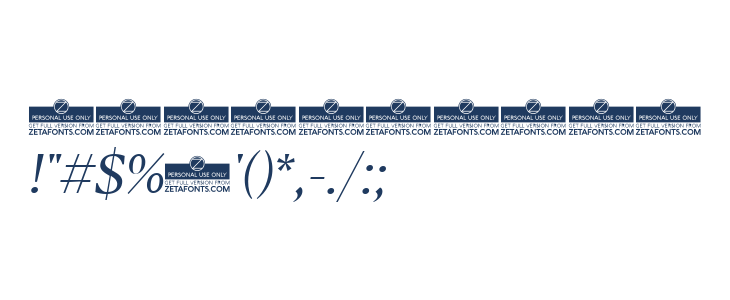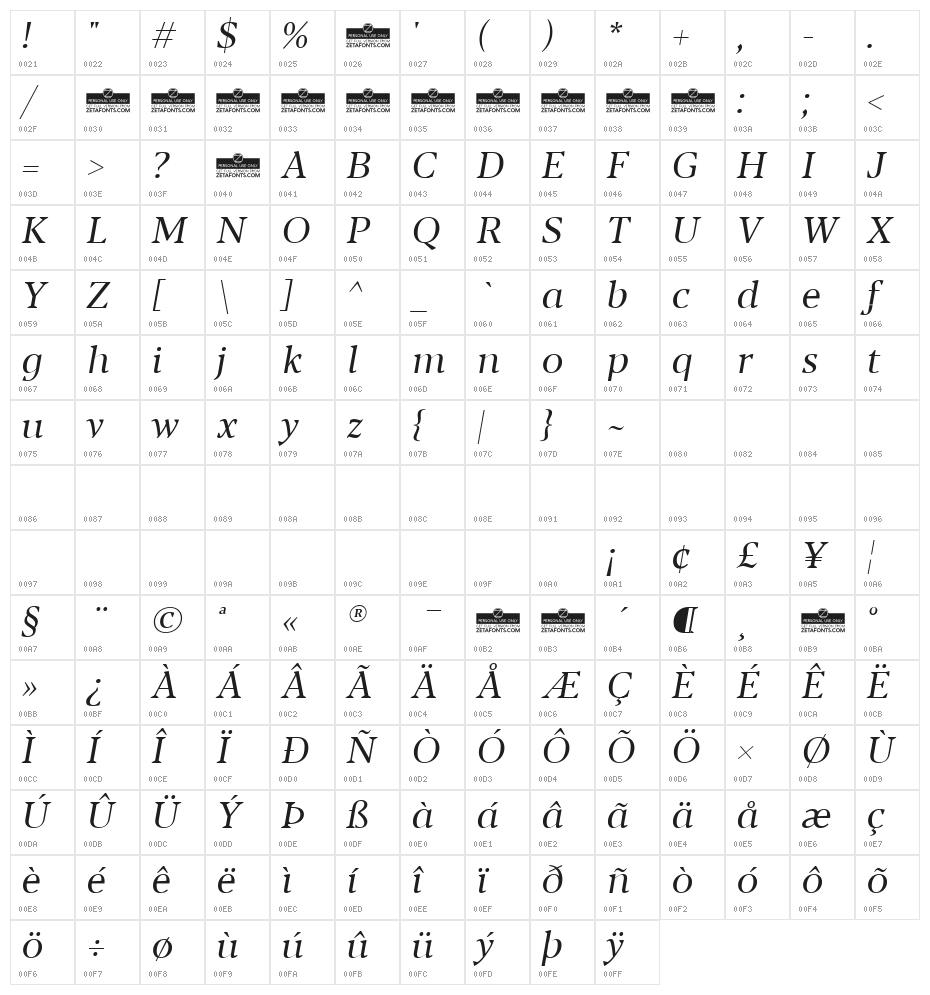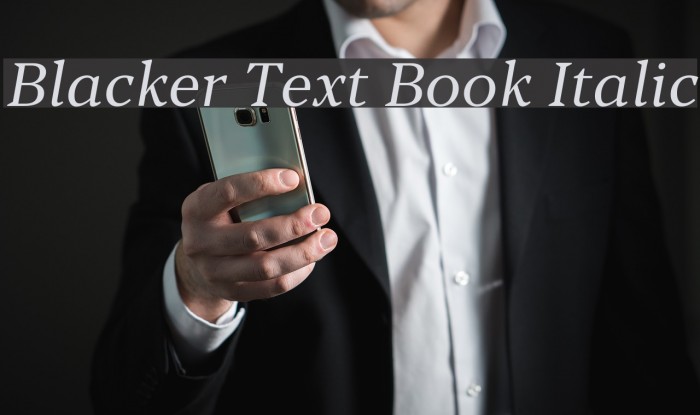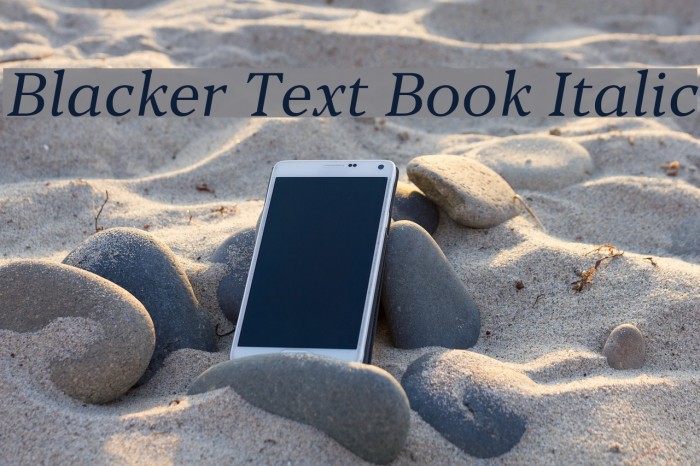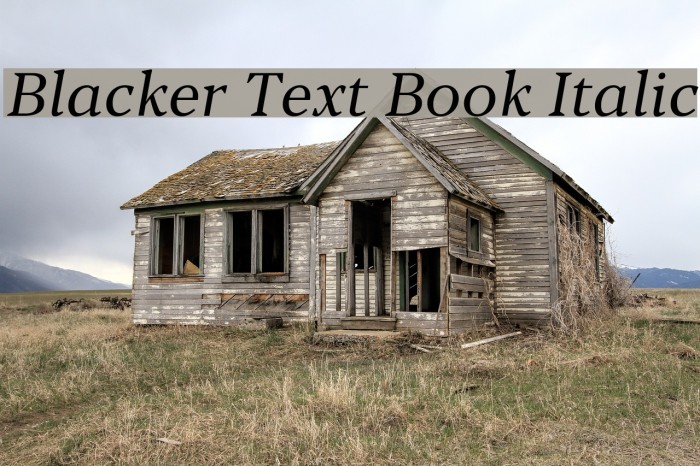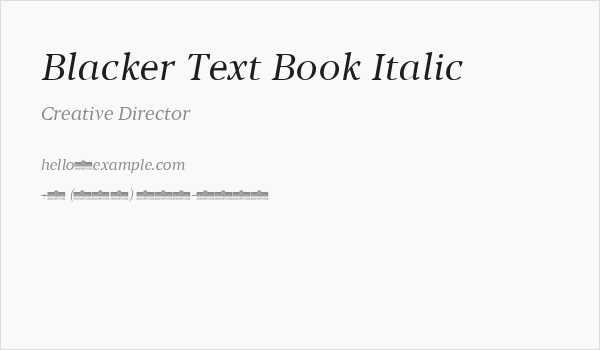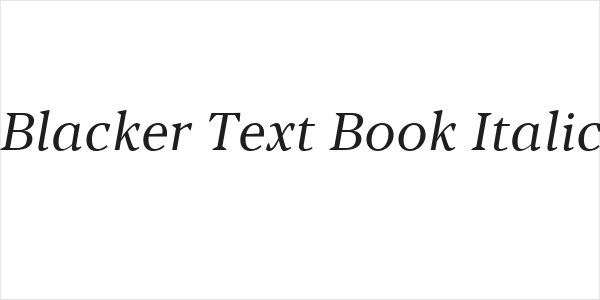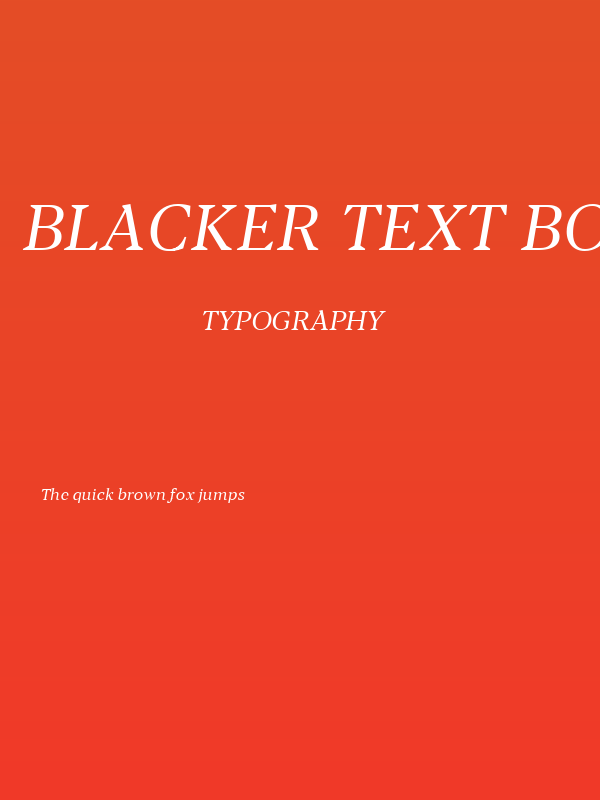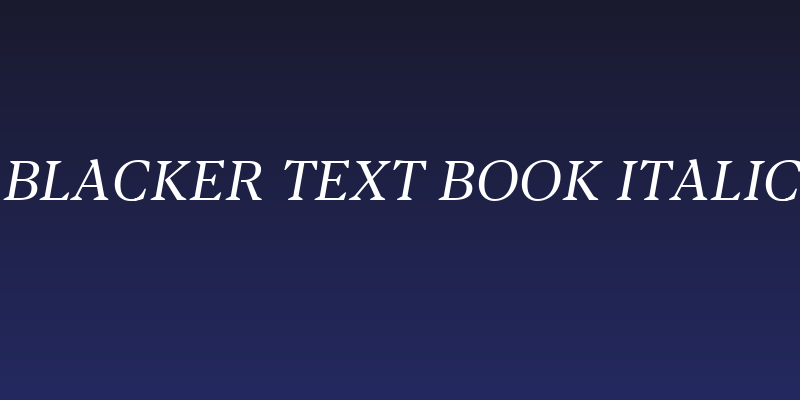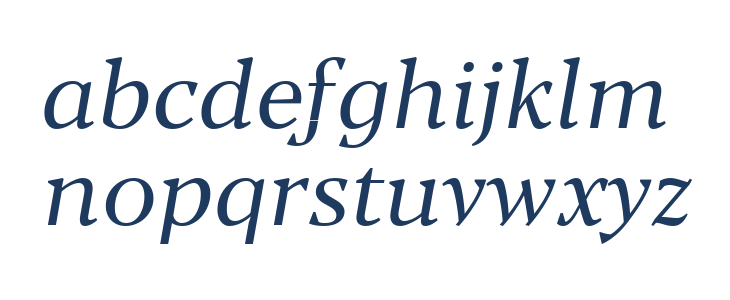
Blacker Text Book Italic Font
Blacker Text Book Italic Description
This font exhibits a refined and elegant style, characterized by its italicized form and smooth, flowing lines. The serifs are pronounced yet not overly exaggerated, providing a classic touch that enhances readability. The strokes vary in thickness, offering a medium contrast that adds to its sophisticated appearance. The overall design is balanced, with a slight slant that gives it a dynamic and graceful look. The characters are well-spaced, ensuring clarity and legibility across different sizes. This font is versatile, suitable for both formal and creative applications, making it an excellent choice for projects that require a touch of elegance and tradition.
| Proposed Projects | Ideal for book covers, invitations, branding, and editorial design. |